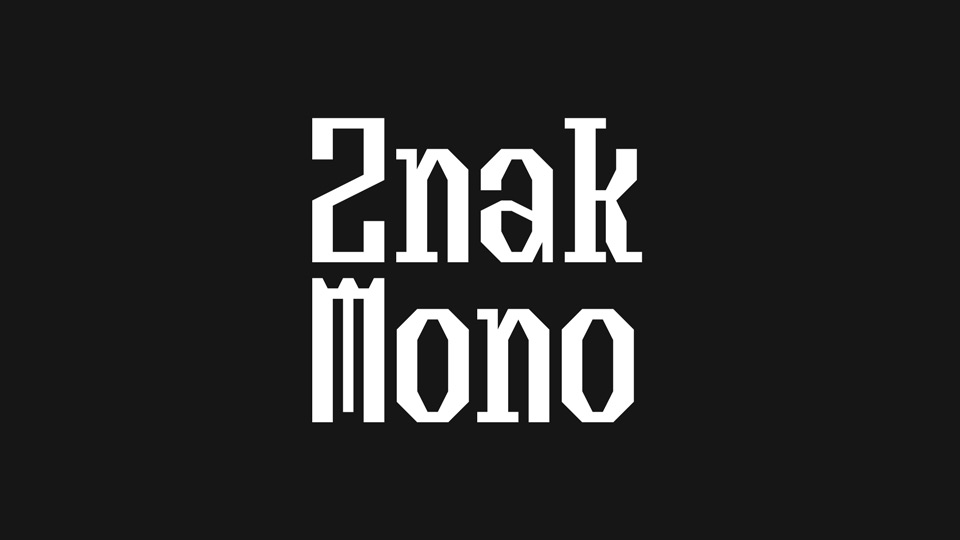
Download Znak Mono font, a monospaced geometric typeface with no curves. With its bold and sharp look Znak Mono font is perfect for posters, headlines, short text blocks, creative typography.